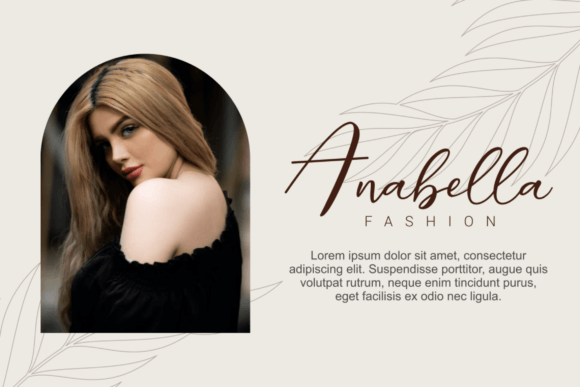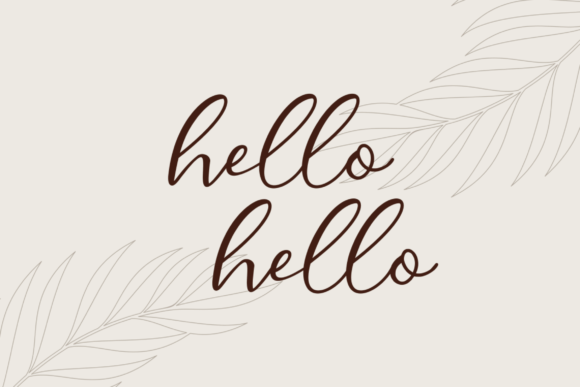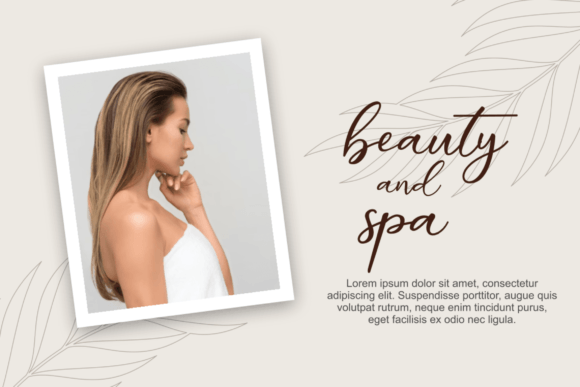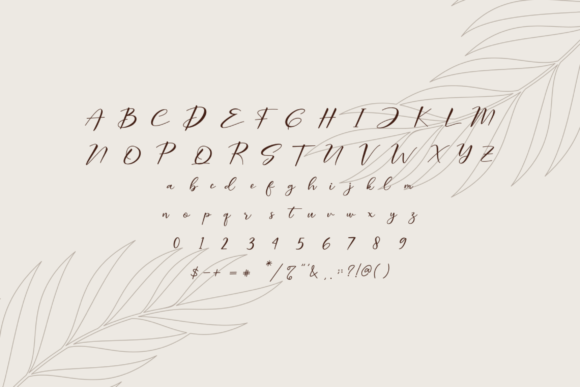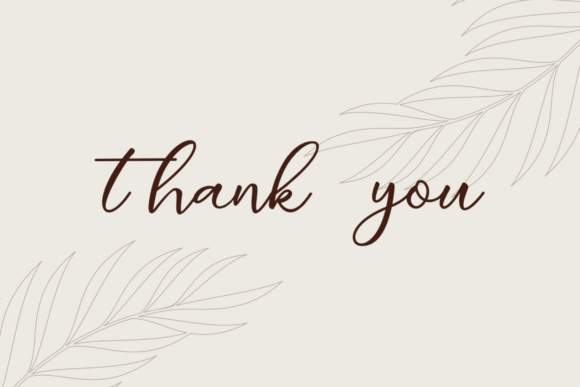
The Aatarada Font: A Flowing Script for Creative Projects
An Honest Review of Aatarada Font
The Aatarada font has quickly become one of my go-to fonts for creative projects. Here’s what I love about it:
- ✨ Authentic and flowing script: Aatarada has a unique, hand-crafted feel that adds a touch of personality to any design.
- ✅ Highly versatile: This font is suitable for a wide range of projects, from logos and t-shirt printing to esports and more.
- ✅ Elegant and legible: The font’s flowing script makes it easy to read, even at smaller sizes.
While Aatarada is an excellent font, it’s not without its quirks:
- 🤔 Limited use of uppercase letters: Aatarada’s script style means that uppercase letters may not be as prominent as in other fonts.
- ⚠️ Requires careful kerning: As with any script font, kerning is crucial to ensure that the text looks balanced and visually appealing.
The Story Behind Aatarada Font
Aatarada was designed by a team of typographers who wanted to create a font that would capture the essence of handwritten script. Inspired by traditional calligraphy and modern digital design, Aatarada is the result of careful craftsmanship and attention to detail.
| Font Name | Aatarada Font |
| What is Aatarada font best used for? | Aatarada is suitable for a wide range of creative projects, including logos, t-shirt printing, esports, and more. |
| Does Aatarada support OpenType features? | Yes, Aatarada supports OpenType features, including ligatures and stylistic alternates. |